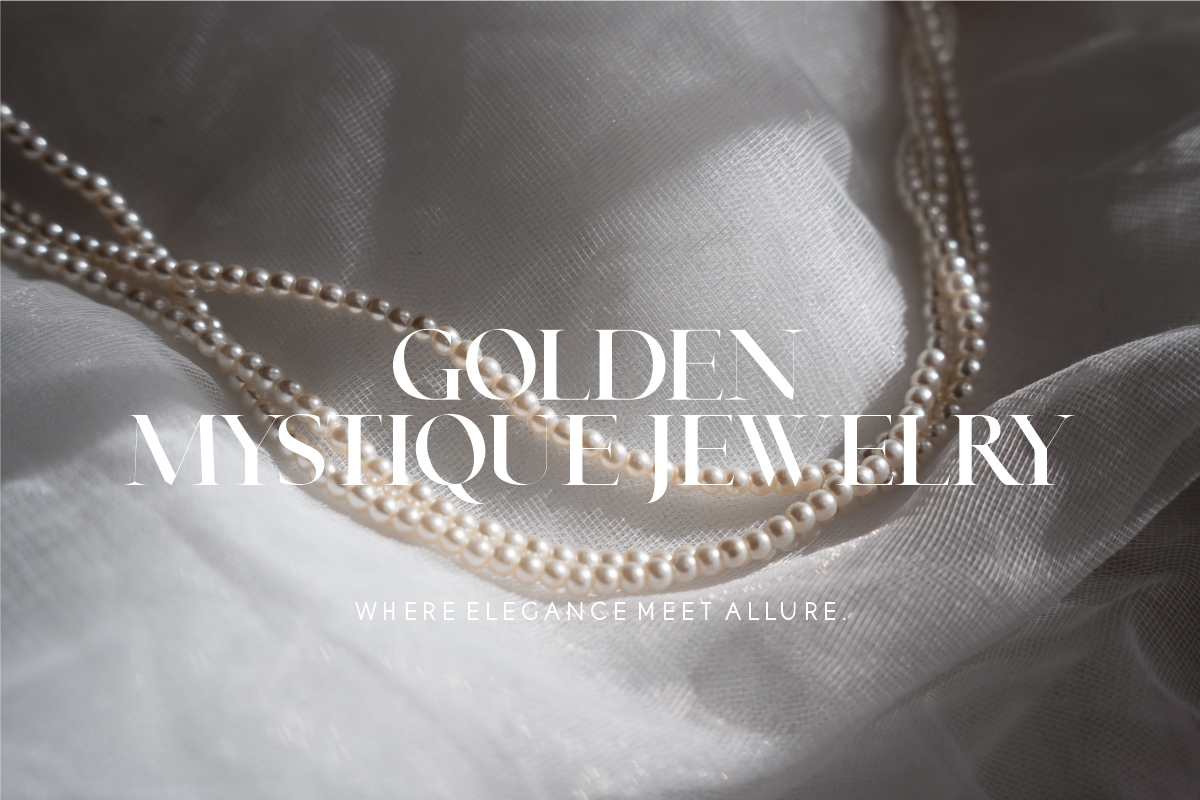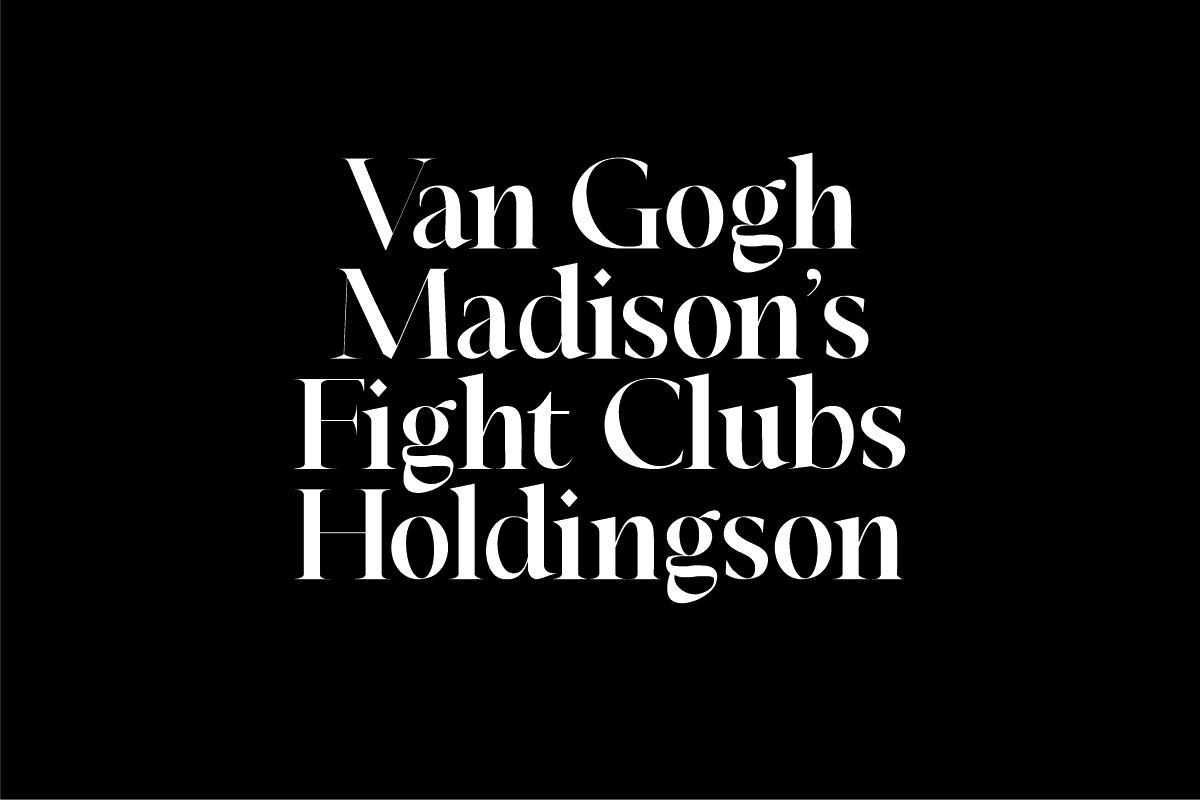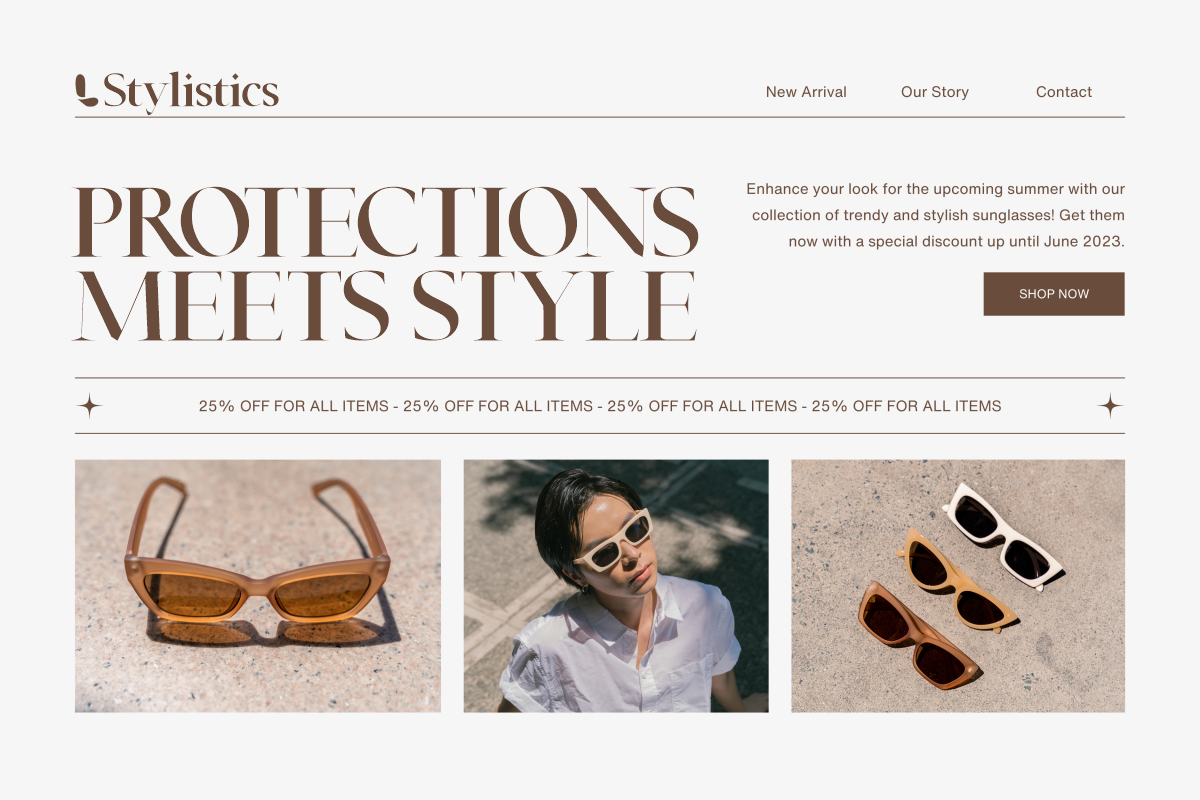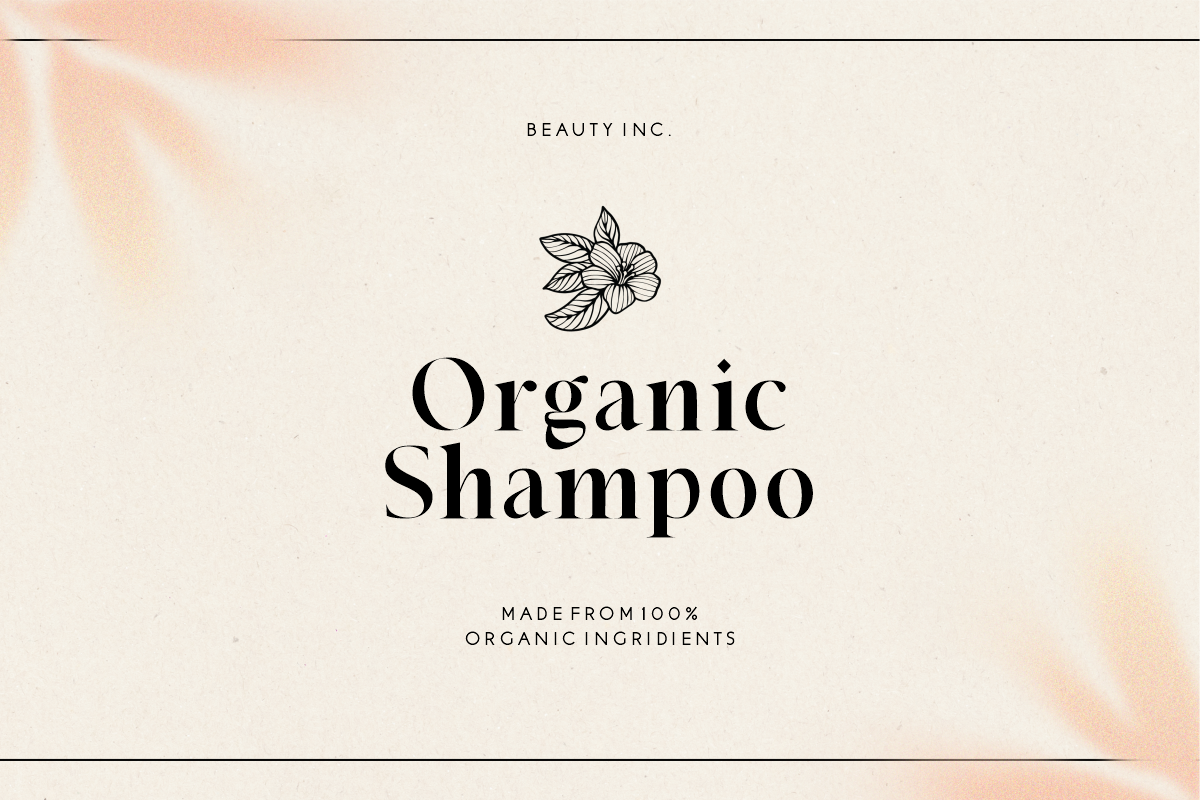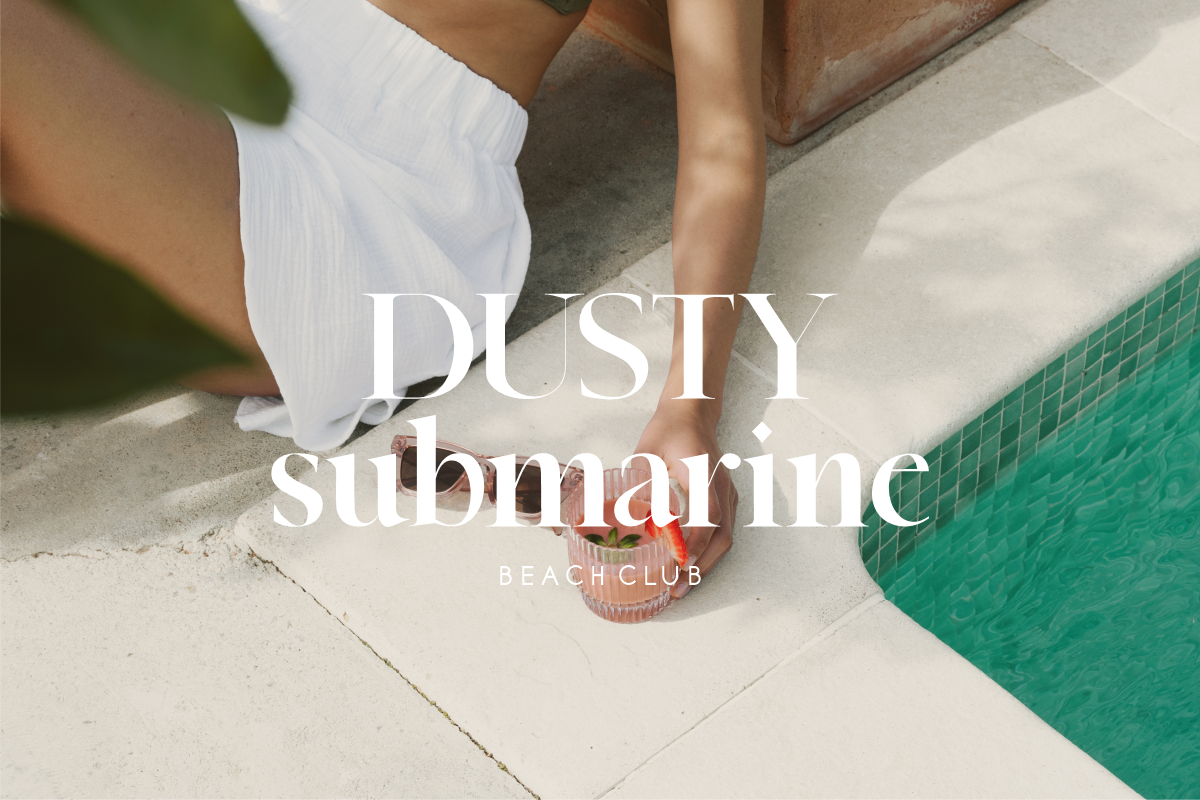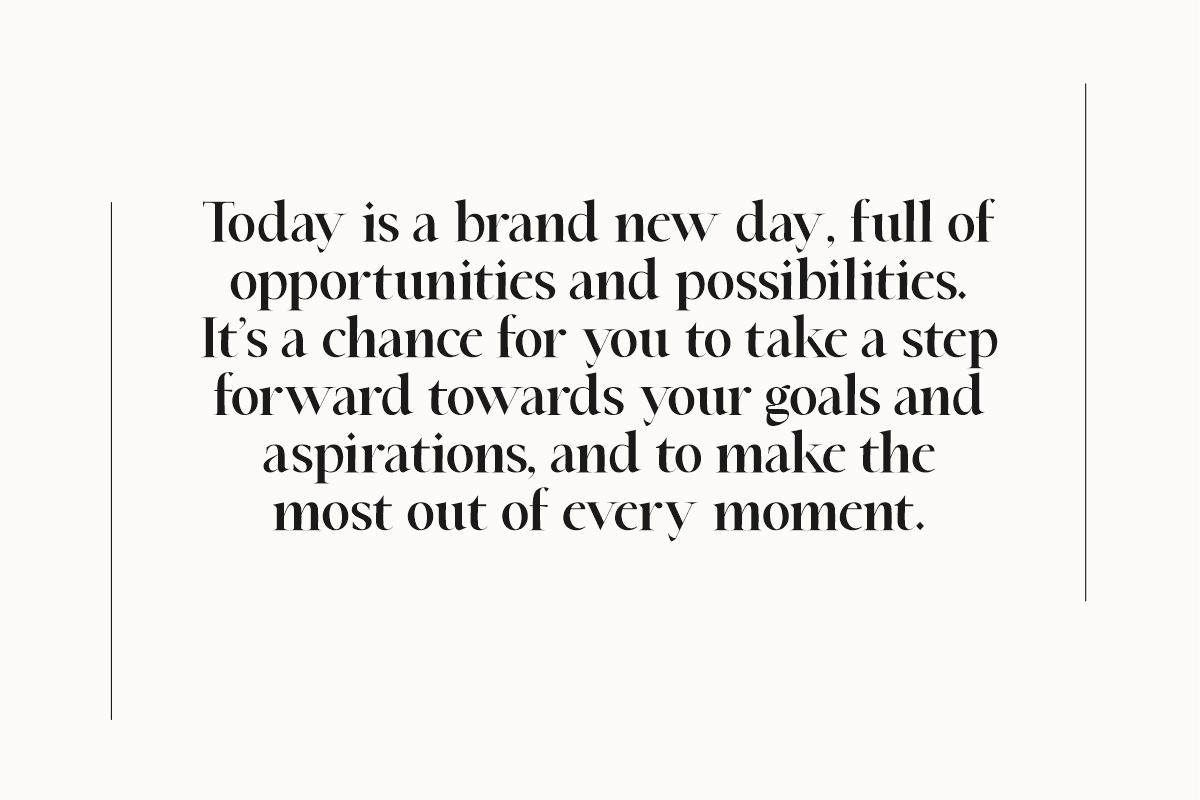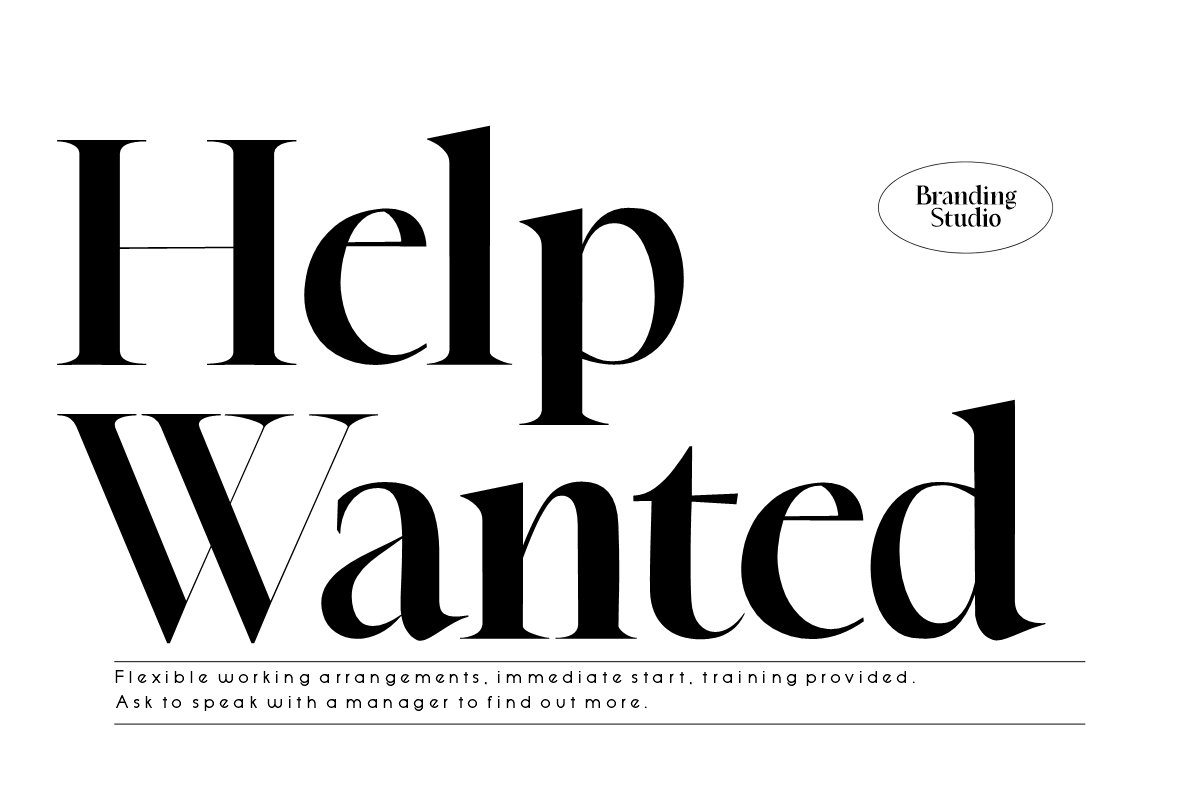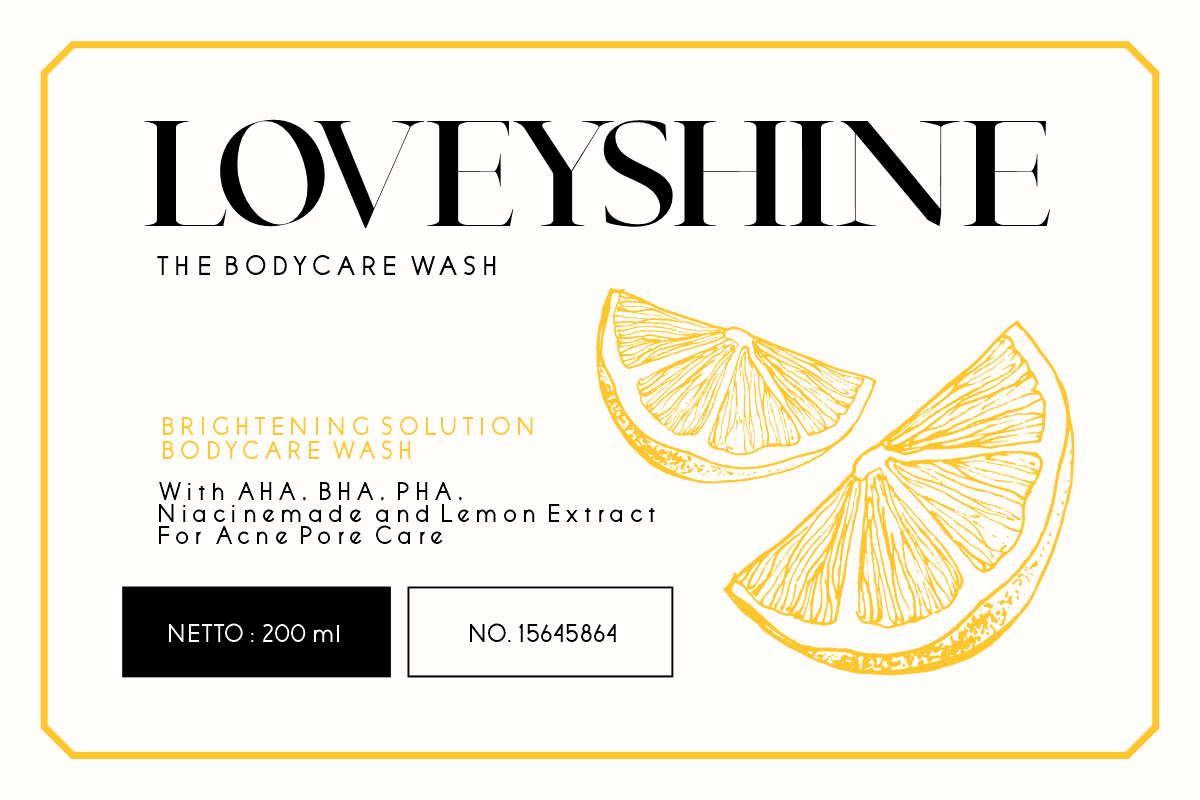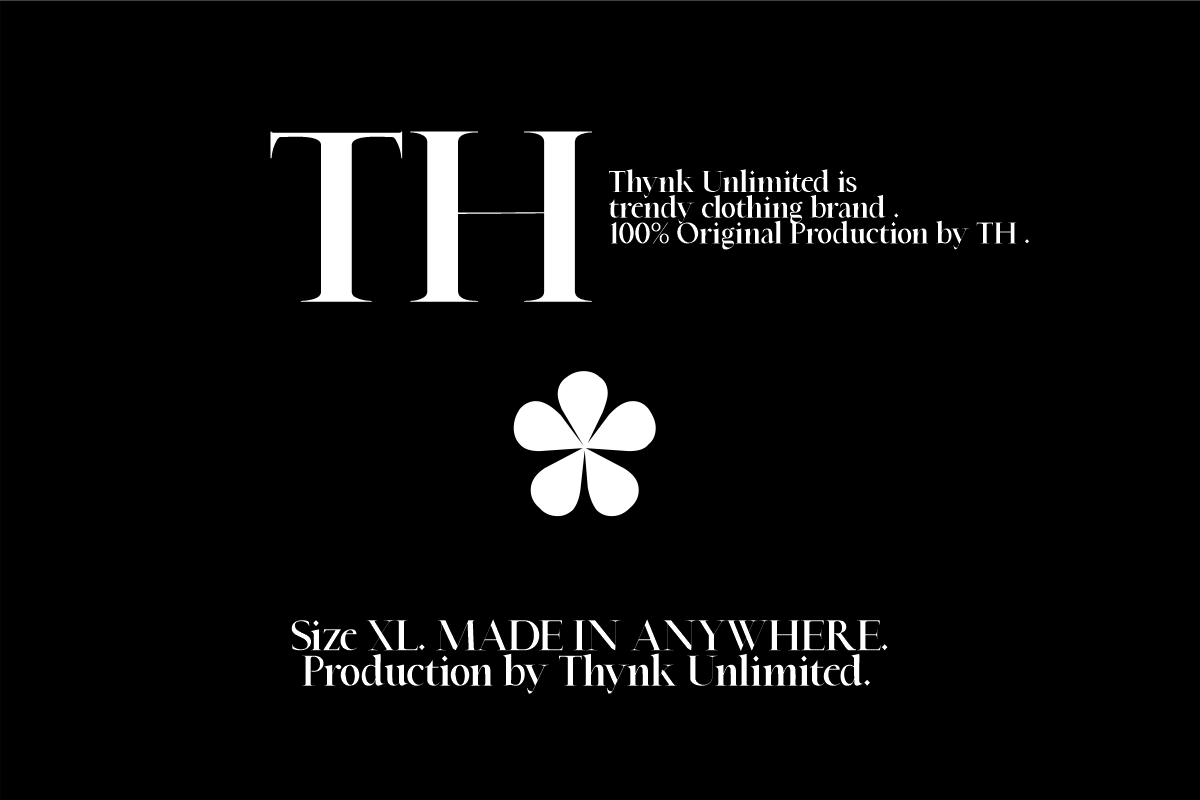
Rustery Mirage – Modern Serif
Introducing Rustery Mirage, a striking modern serif font that effortlessly blends timeless elegance with contemporary flair. With its sleek and sophisticated design, Rustery Mirage is the perfect choice for projects that demand a touch of refinement and versatility.
Crafted with meticulous attention to detail, Rustery Mirage exudes confidence and professionalism. Its clean lines and balanced proportions create a harmonious balance between classic charm and modern aesthetics. The font’s serifs add a touch of traditional grace, while its sleek curves and subtle flourishes lend a fresh and stylish appeal.
Rustery Mirage is highly legible, making it an excellent choice for various applications. Whether you’re designing branding materials, editorial layouts, website headers, or social media graphics, this font will effortlessly enhance your project’s visual impact. Its versatility allows it to shine in both print and digital mediums, adapting seamlessly to any design environment.
Experience the allure of Rustery Mirage and elevate your designs to new heights. Captivate your audience with this modern serif font that exudes elegance, versatility, and a touch of contemporary sophistication. Let Rustery Mirage be your go-to choice for creating stunning typographic masterpieces that leave a lasting impression.